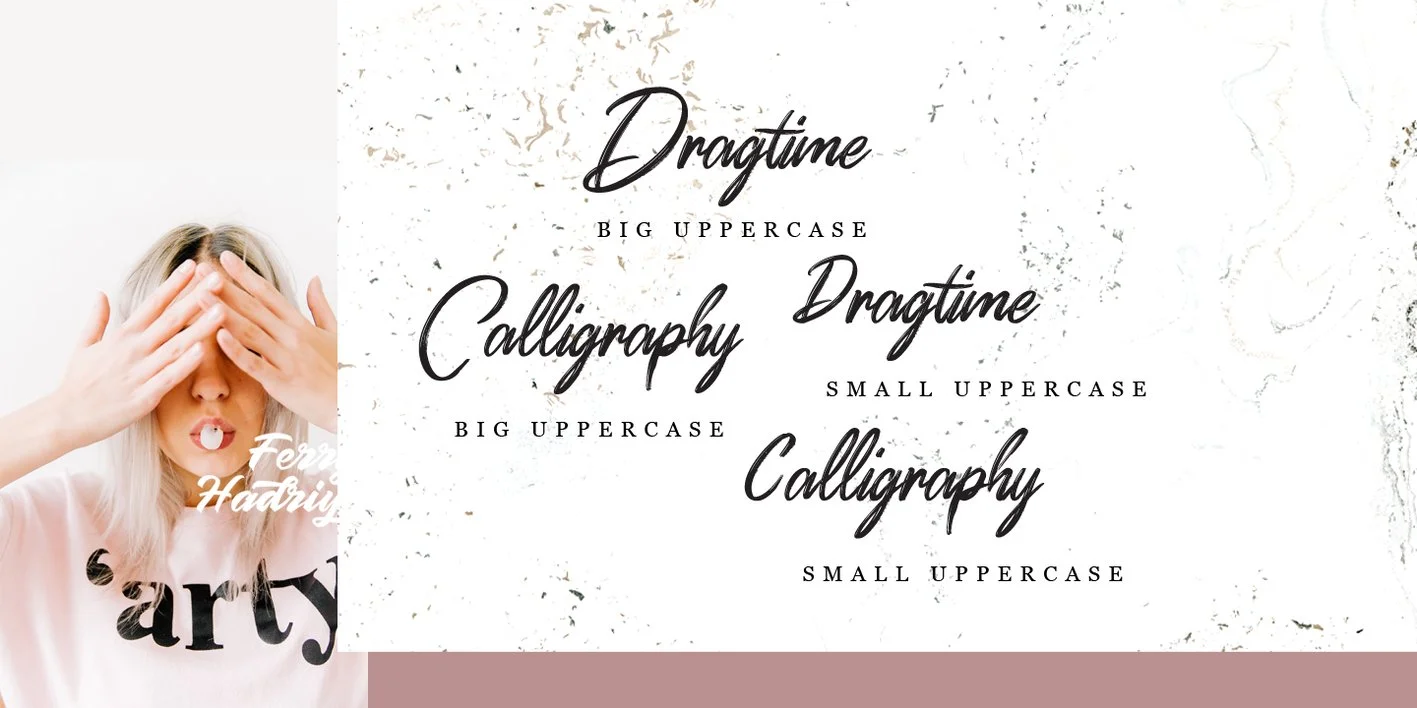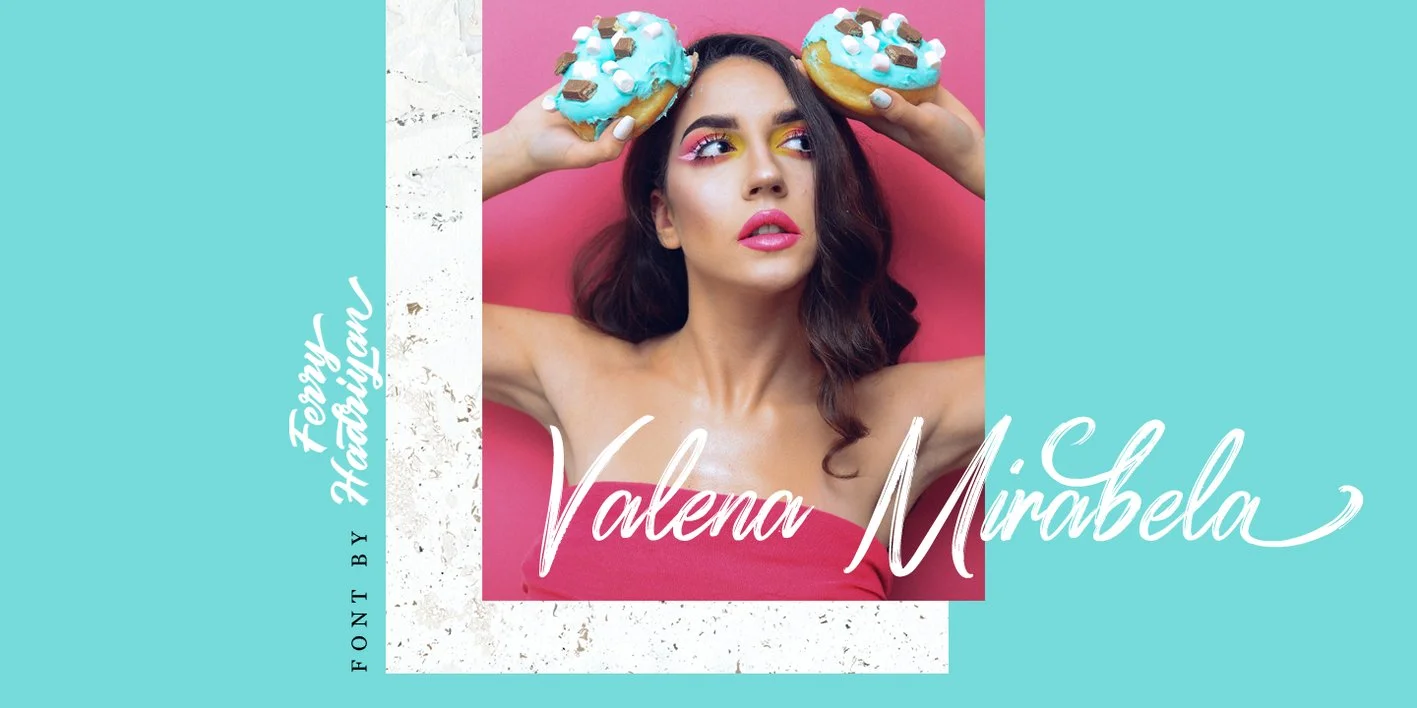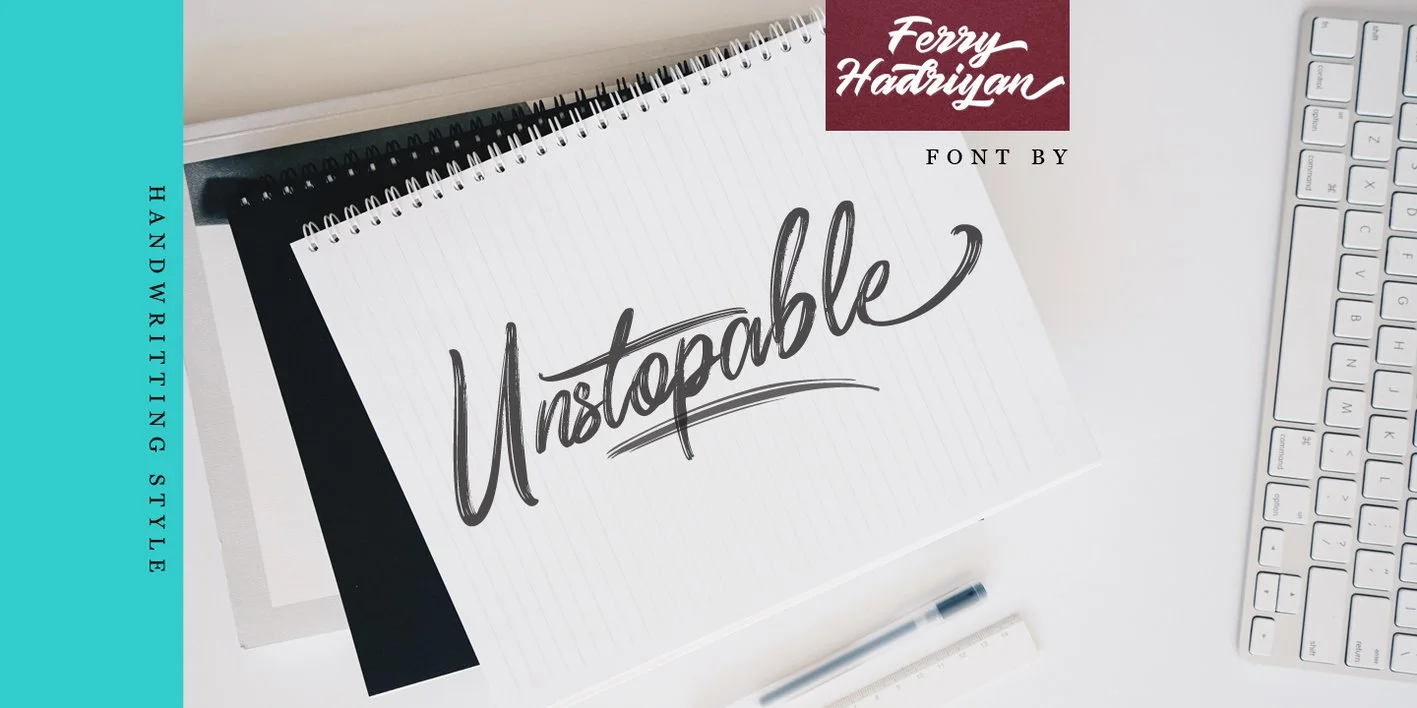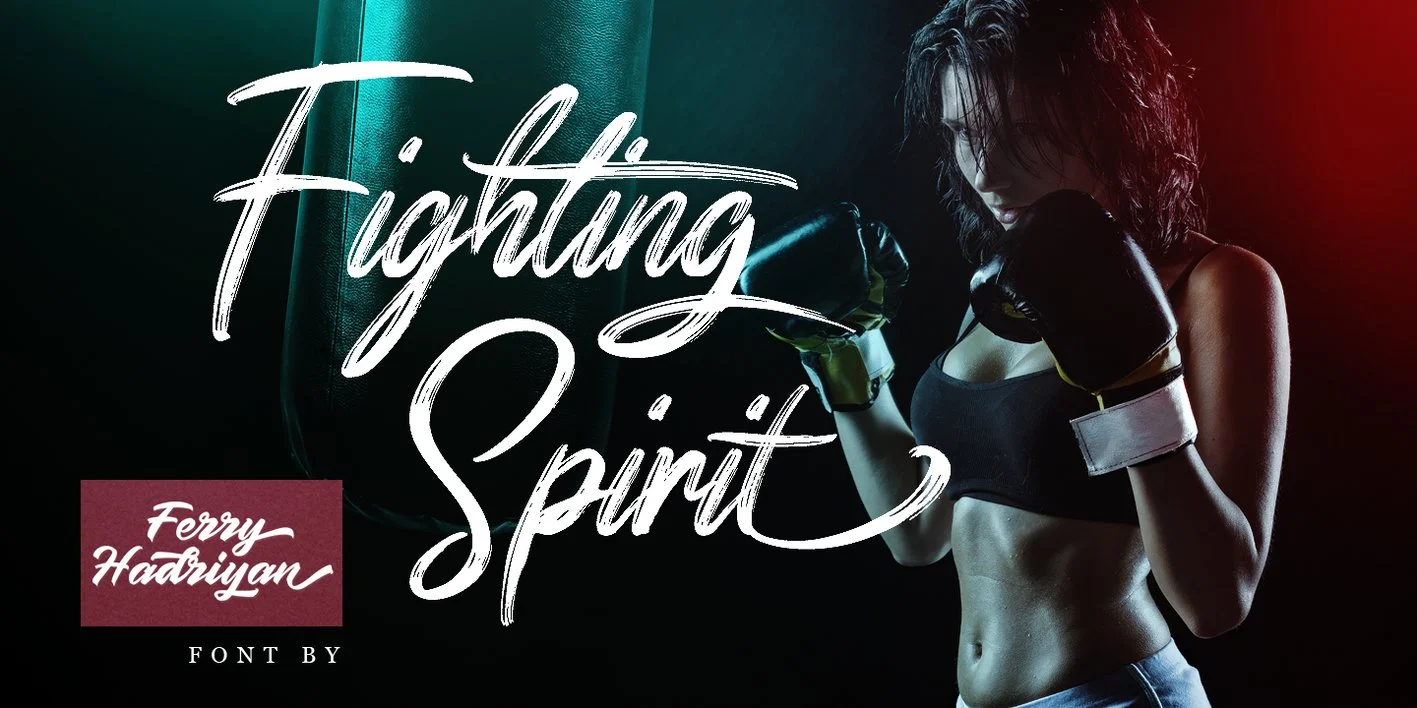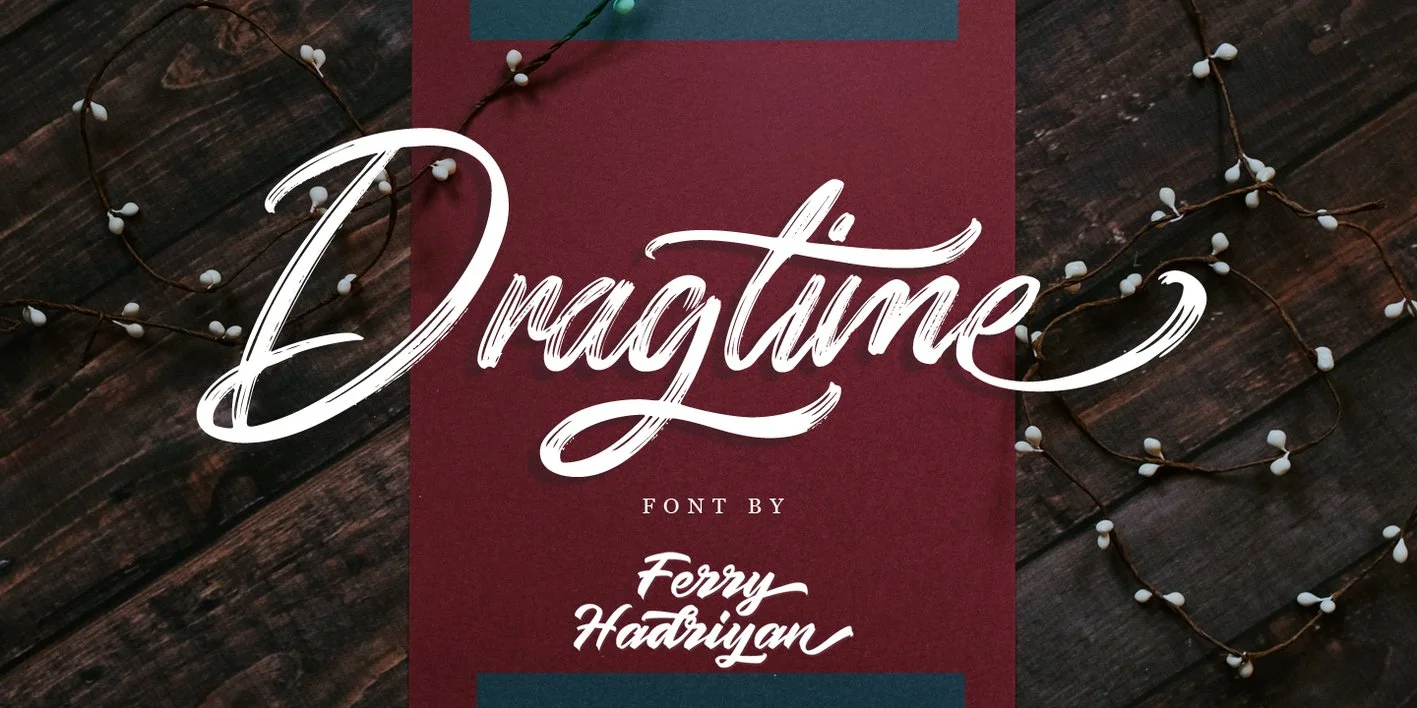
Dragtime Font
When a design brief calls for both strong typographic hierarchy support and immediate visual impact, type choices matter — Dragtime answers that brief. The typeface brings a versatile sensibility to a broad range of creative disciplines, with refined proportions and careful stroke modulation that holds up whether the work is print-first or screen-first.
In practice, Dragtime proves particularly effective for annual reports, advertising campaigns, product labels, poster creation, social media graphics. Designers reaching for it find that the type decisions feel resolved rather than laboured — a useful quality when client timelines are tight.
The range of applications extends to packaging design, signage systems, logo design, editorial layouts. That breadth is deliberate: the proportions and spacing were stress-tested across a wide range of mock briefs before the typeface was finalised.
The proportions balance x-height, cap height, and ascender length to produce a face that reads confidently at body copy sizes without losing presence at display scale. Sidebearings were derived from visual rhythm testing rather than mathematical calculation alone.
Pairing Dragtime with a contrasting serif or a neutral grotesque gives mixed-format layouts a clear visual grammar without requiring constant size adjustments to establish hierarchy.
Art directors commissioning type-led campaigns find Dragtime a reliable choice for projects that demand both personality and restraint. The design avoids the self-conscious quirkiness that dates quickly, settling instead for considered distinctiveness that holds up over time.